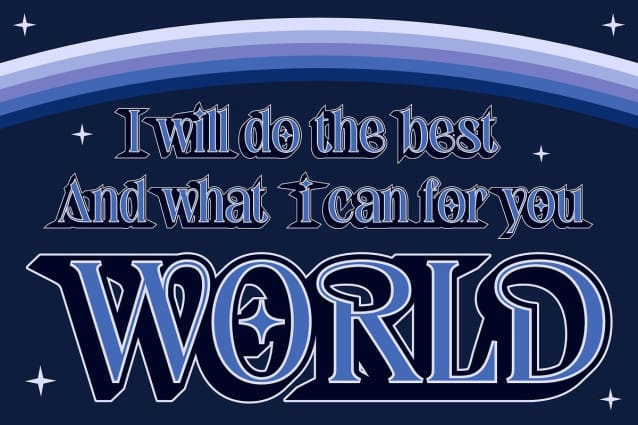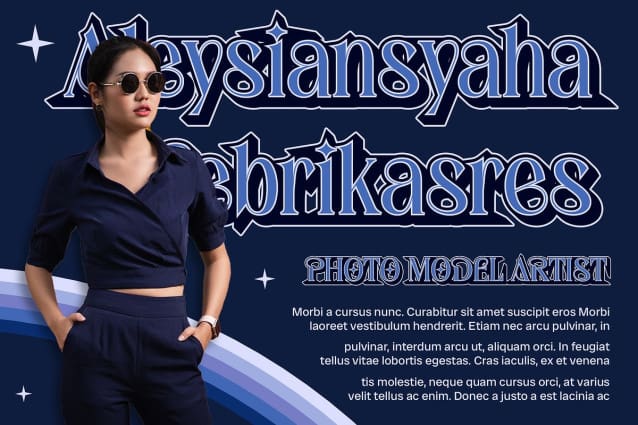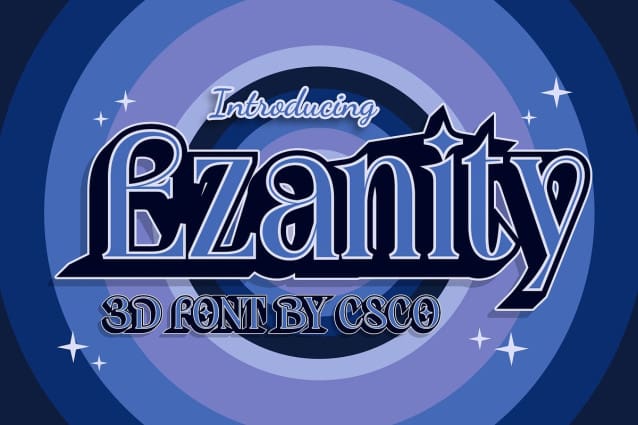
Ezanity 3D Font
Ezanity 3D Font is a modern serif font with an Art Nouveau style and a 3D effect, perfect for creative designs, adding a unique touch to the design. Its elegant curves and three-dimensional elements create a captivating and artistic look, ideal for posters, branding, and other projects that require a touch of artistic flair.
With its intricate details and three-dimensional appearance, Ezanity 3D offers a fresh take on serif fonts. The Art Nouveau style and 3D effect create a dynamic and engaging look, perfect for designs that demand attention and convey a sense of creativity and sophistication.
Whether you’re designing a decorative label or creating a stylish invitation, Ezanity 3D is sure to make an impression. Its Art Nouveau style and 3D effect make it perfect for creative designs that need a touch of artistic elegance.
Despite its distinctive appearance, Ezanity 3D is versatile and easy to use. The font works well in both large and small sizes, making it suitable for a variety of applications, from headlines and banners to body text and more. With its blend of Art Nouveau style and 3D effect, Ezanity 3D adds a unique and artistic element to any design.